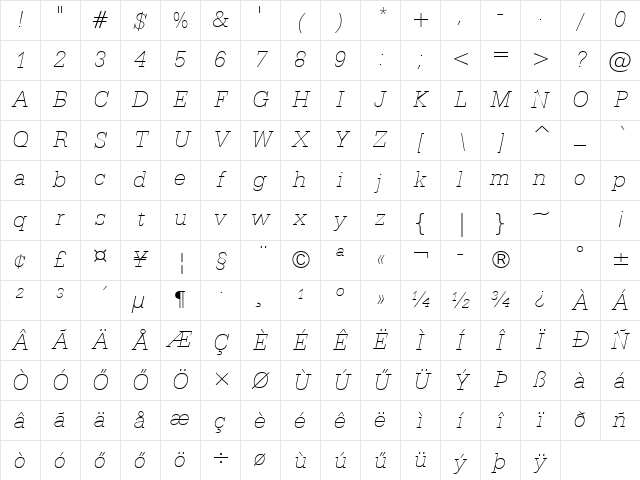
Huni_Serifa Th BT Italic carries the refined structure of traditional serif typography, with bracketed terminals and considered proportions that communicate credibility and craft. The slanted form adds forward momentum and visual energy.